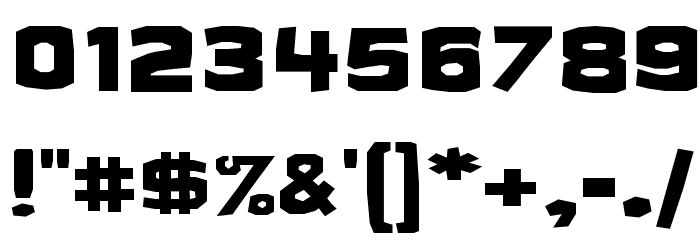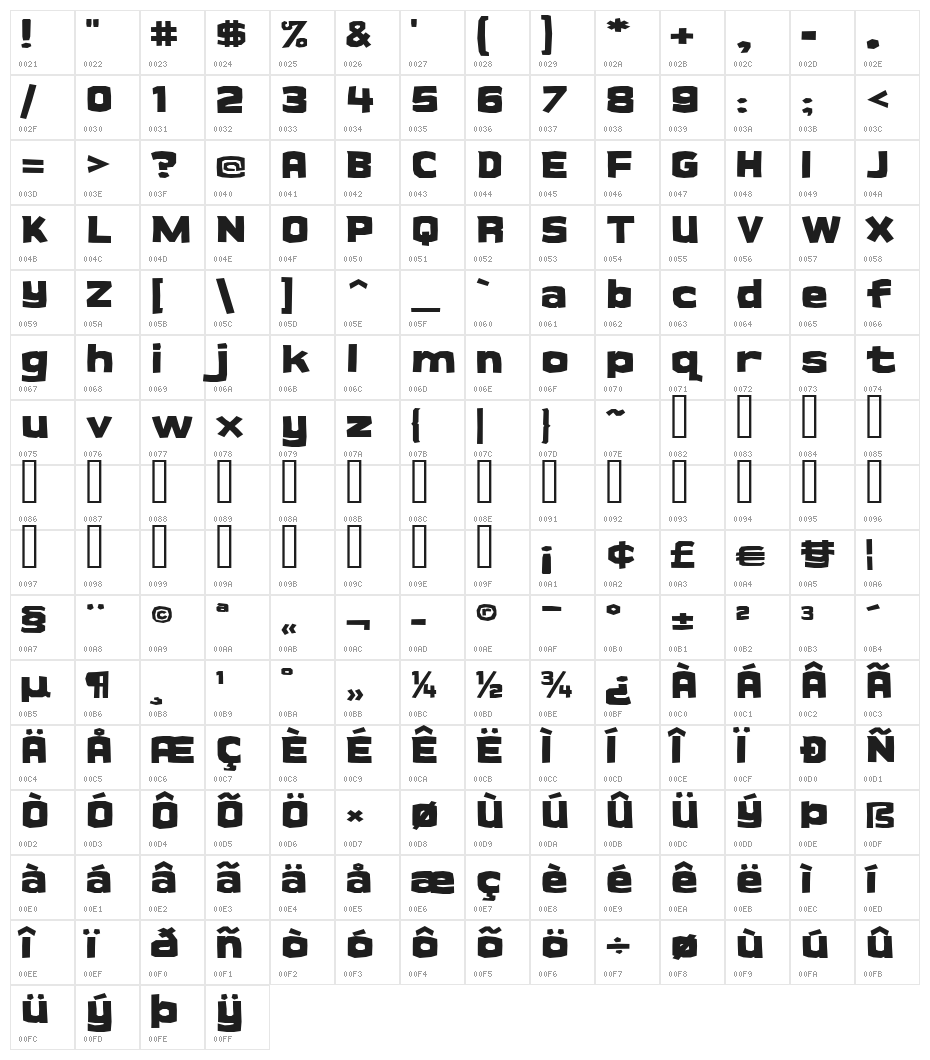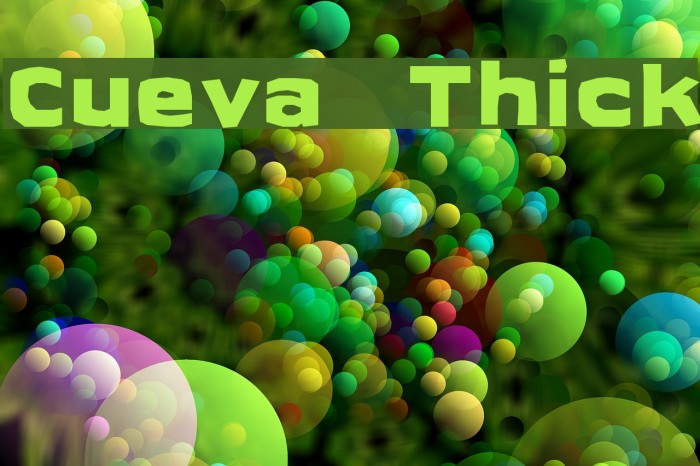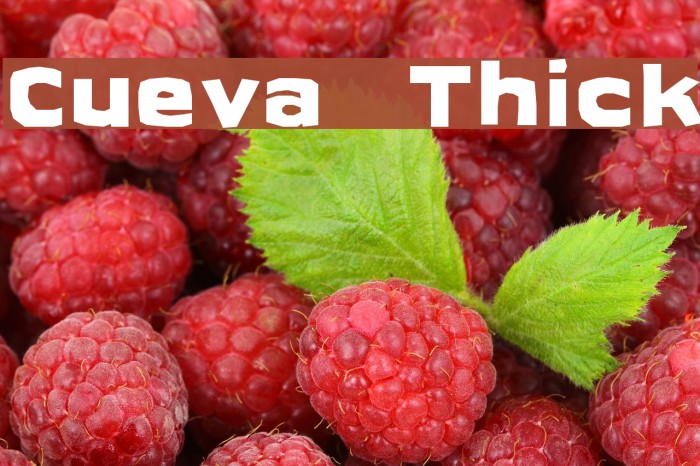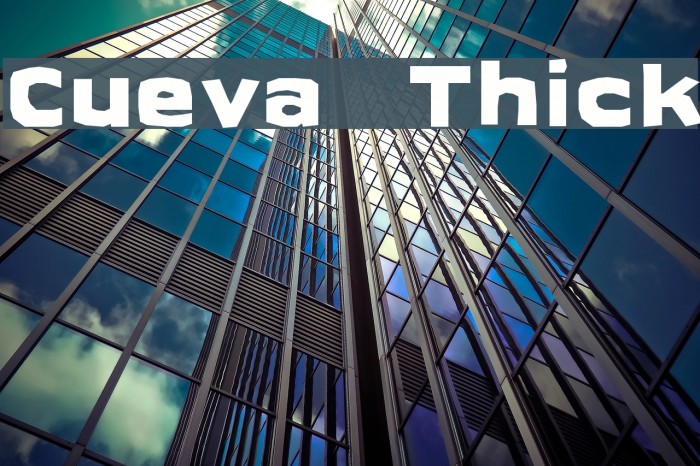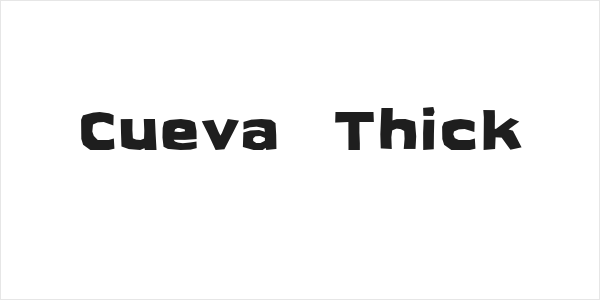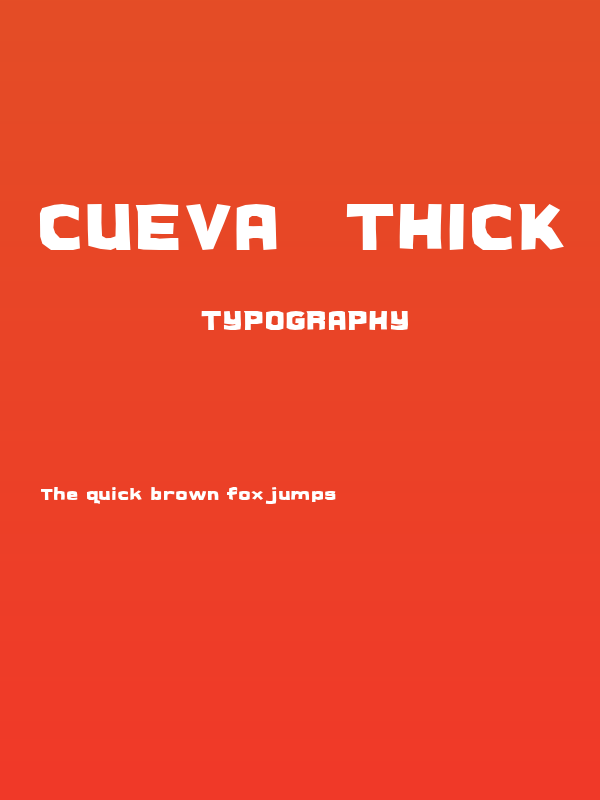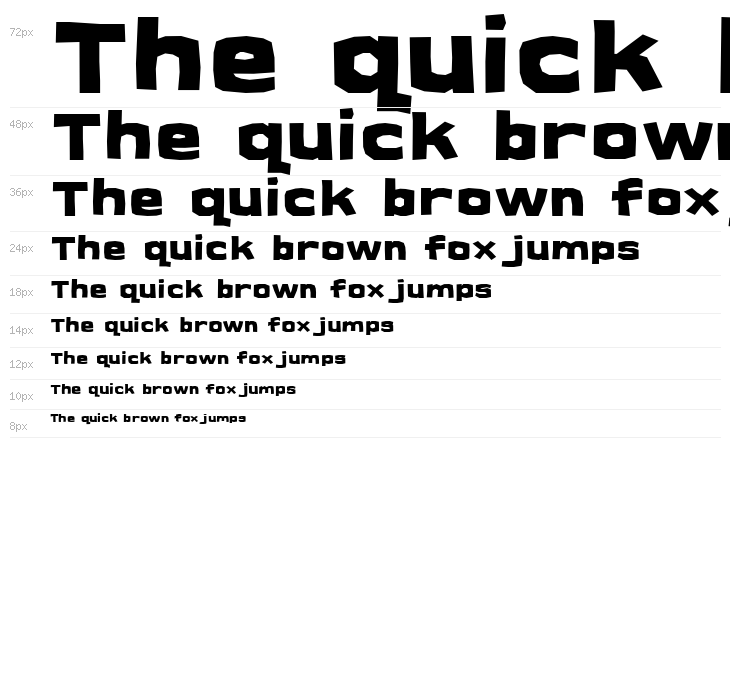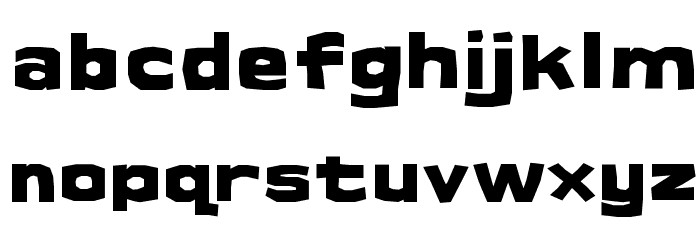
Cueva Thick Font
Cueva Thick Description
This bold and striking font features thick, blocky characters with a slightly irregular edge, giving it a hand-crafted appearance. The uppercase letters are robust and commanding, while the lowercase letters maintain a consistent weight and style. Numbers and special characters are equally bold, ensuring a cohesive look across all text elements. The font's strong presence makes it ideal for attention-grabbing designs, yet its playful irregularities add a touch of uniqueness and charm. The overall style is modern with a hint of rustic appeal, making it versatile for various creative projects.
| Overall Style | Modern, Rustic |
| Proposed Projects | Ideal for posters, logos, headlines, and branding materials that require a bold statement. |